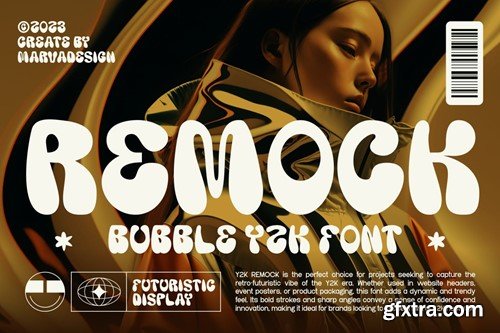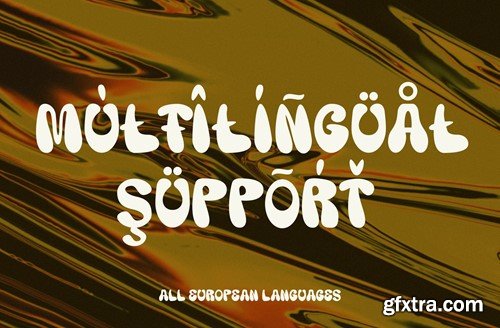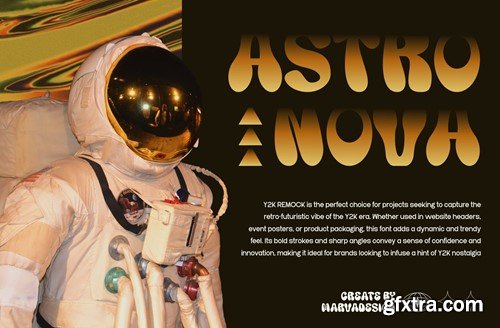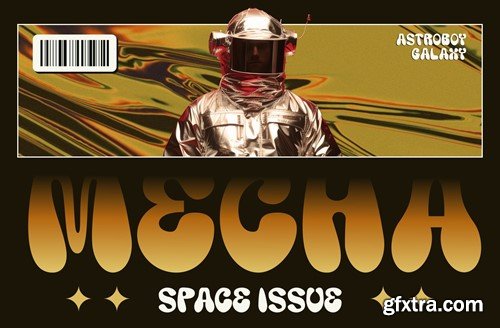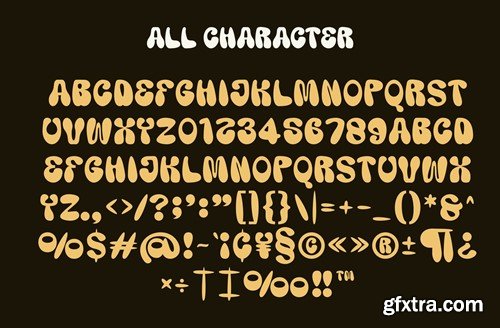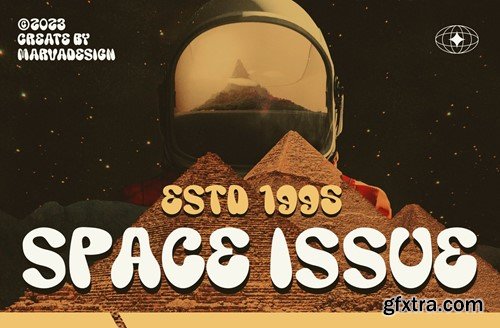
复古波普Y2K字体MK8EG5S
Remock - Retro Bubble Y2K Font MK8EG5S
Remock - Retro Bubble Y2K Font
Introducing our new product Remock Font - Retro Bubble Y2K Font Font authentic display font. The font is suitable for any branding project like logo, Template Design, Product and many more. outstanding in a wide range of contexts.
• Uppercase
• Lowercase
• Multilingual